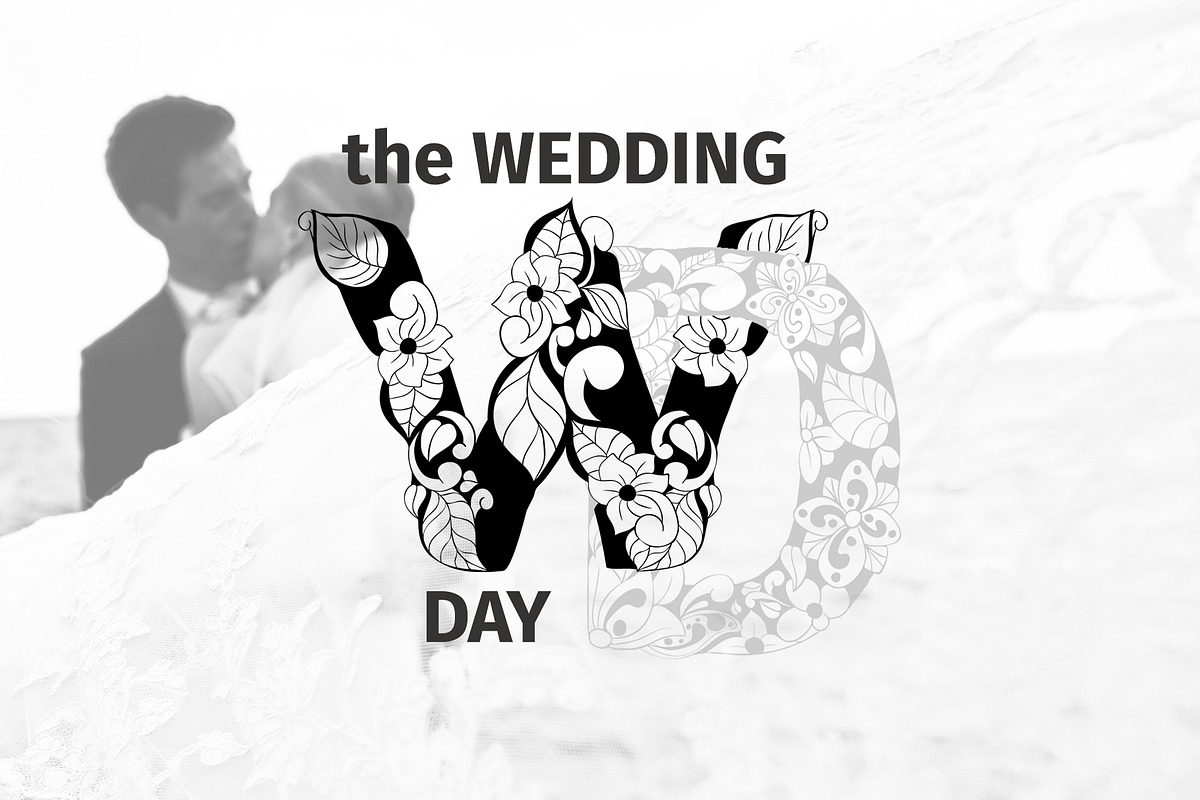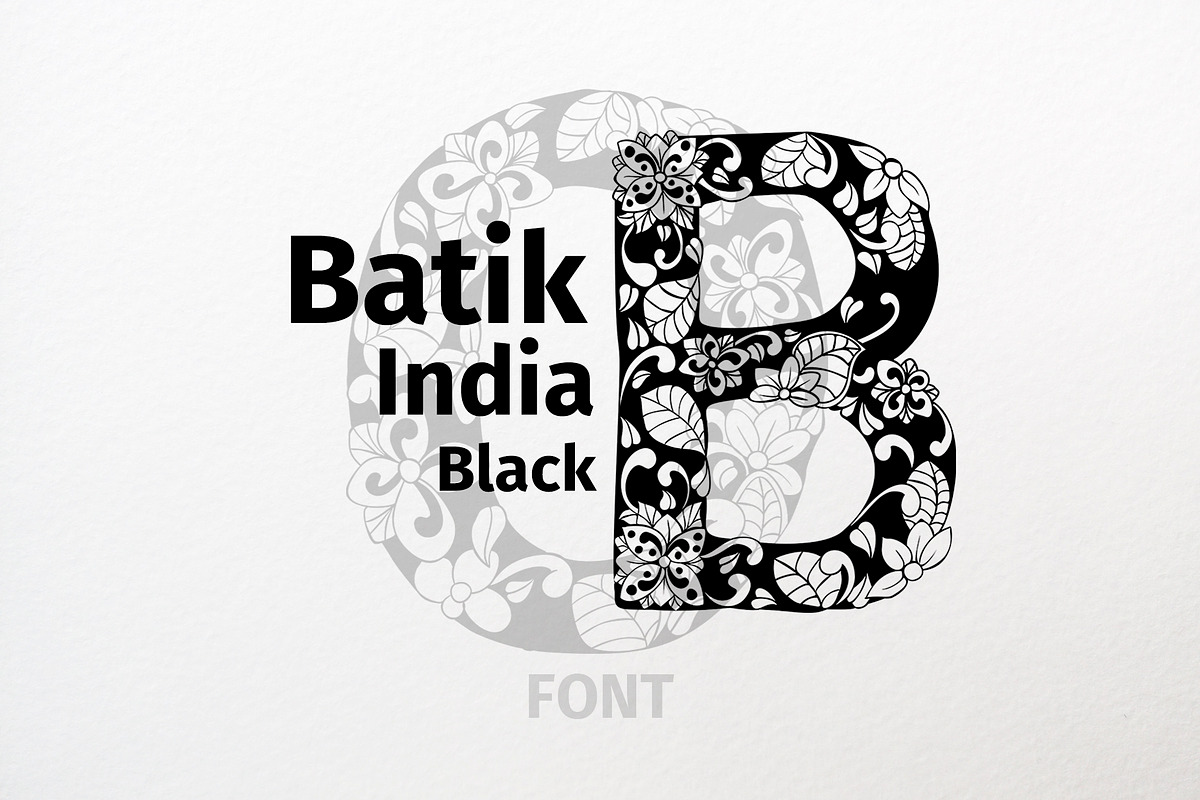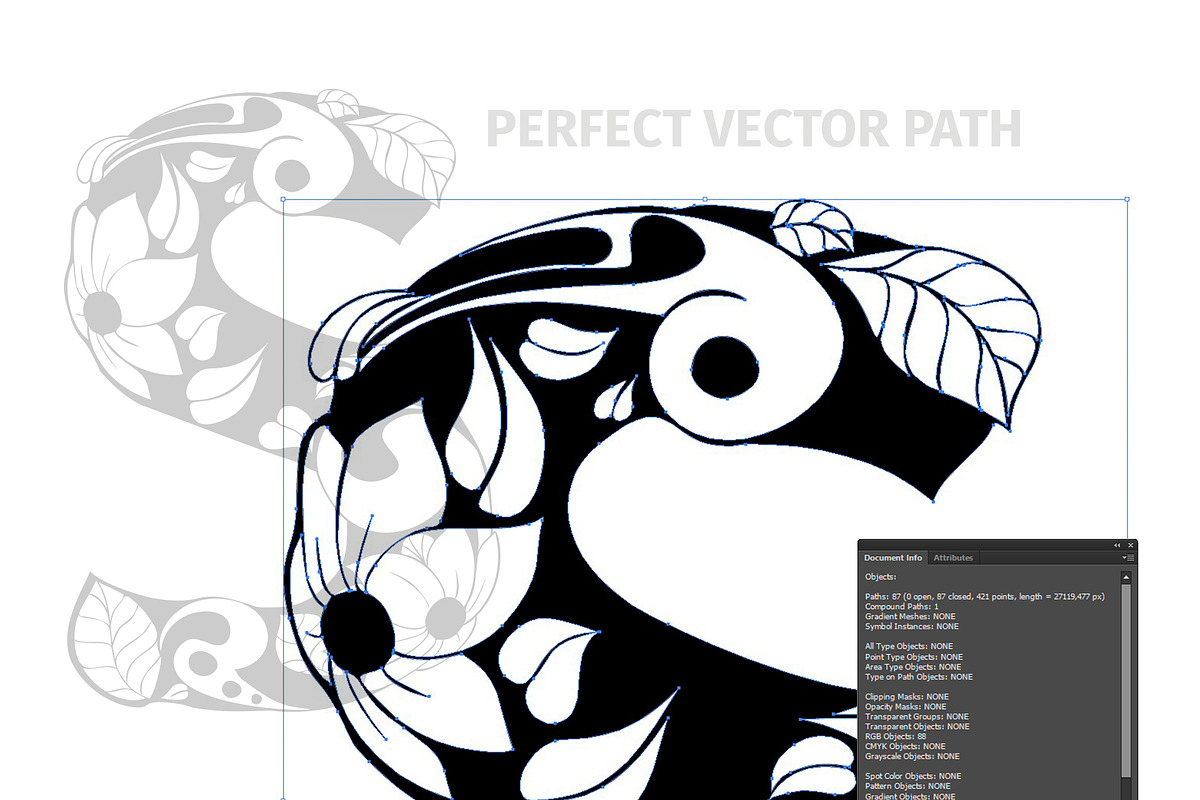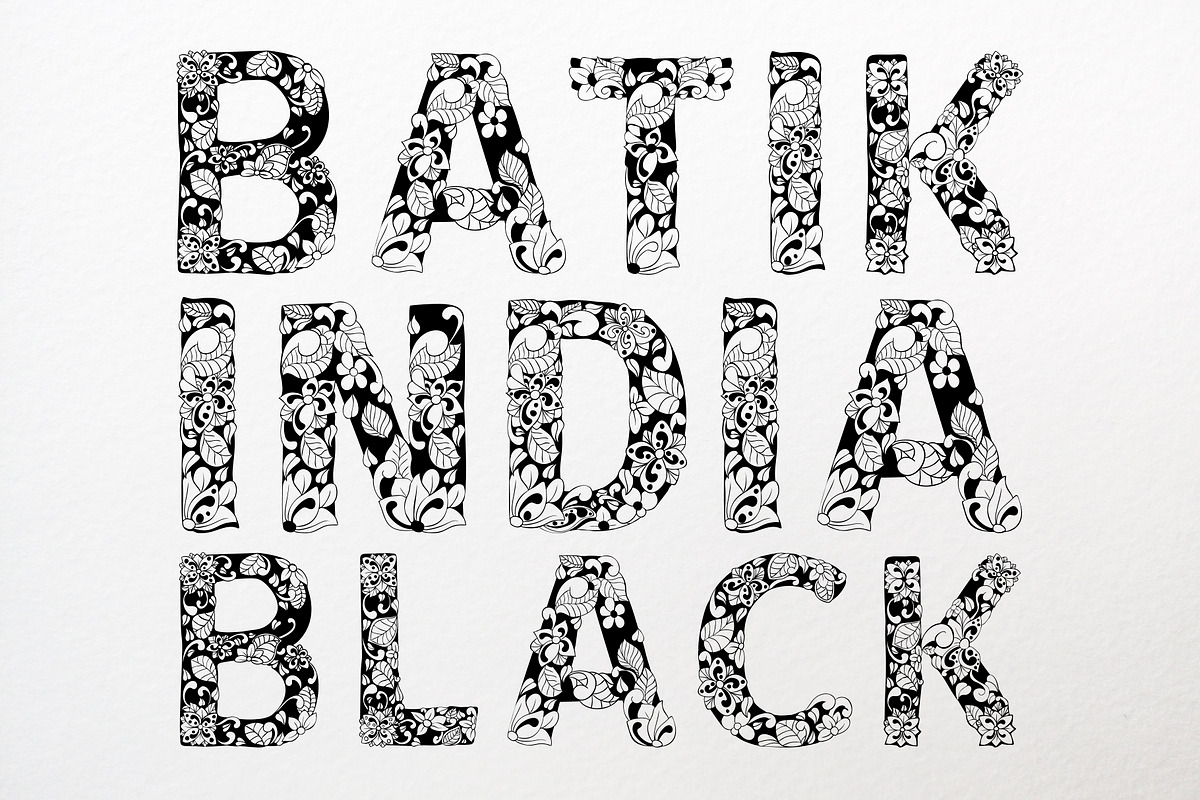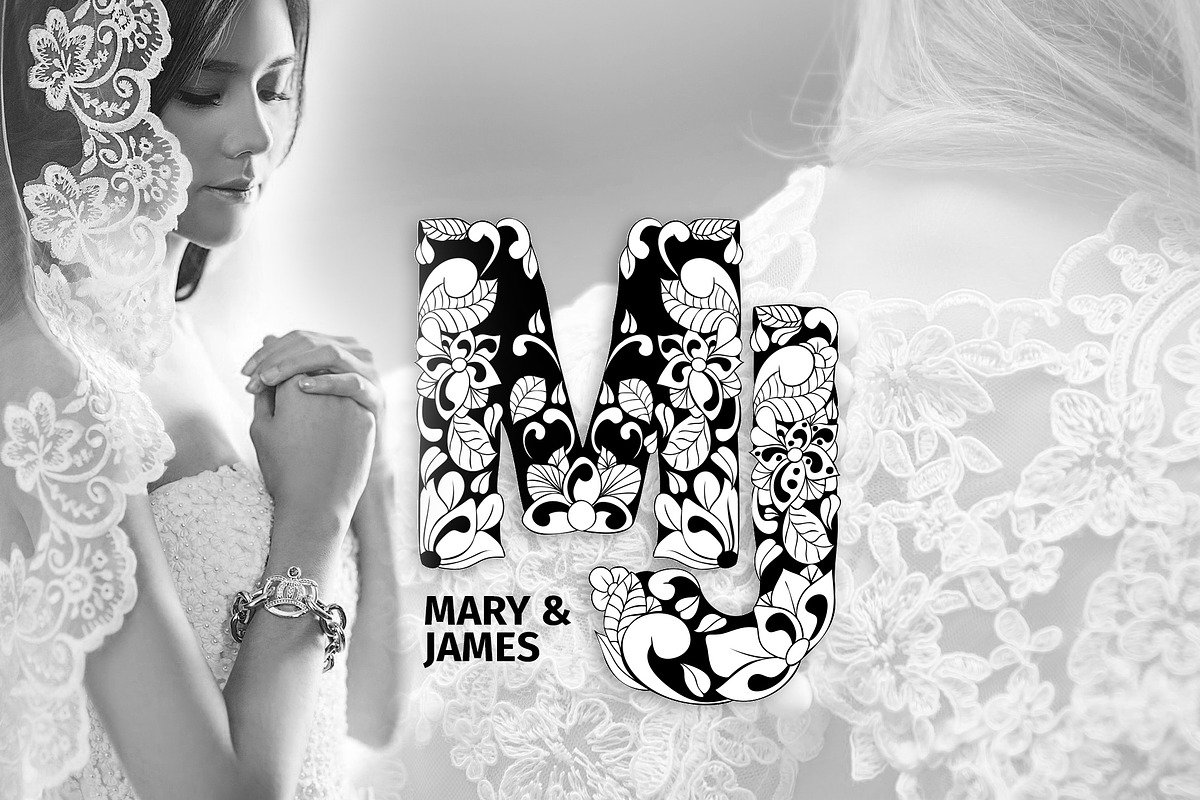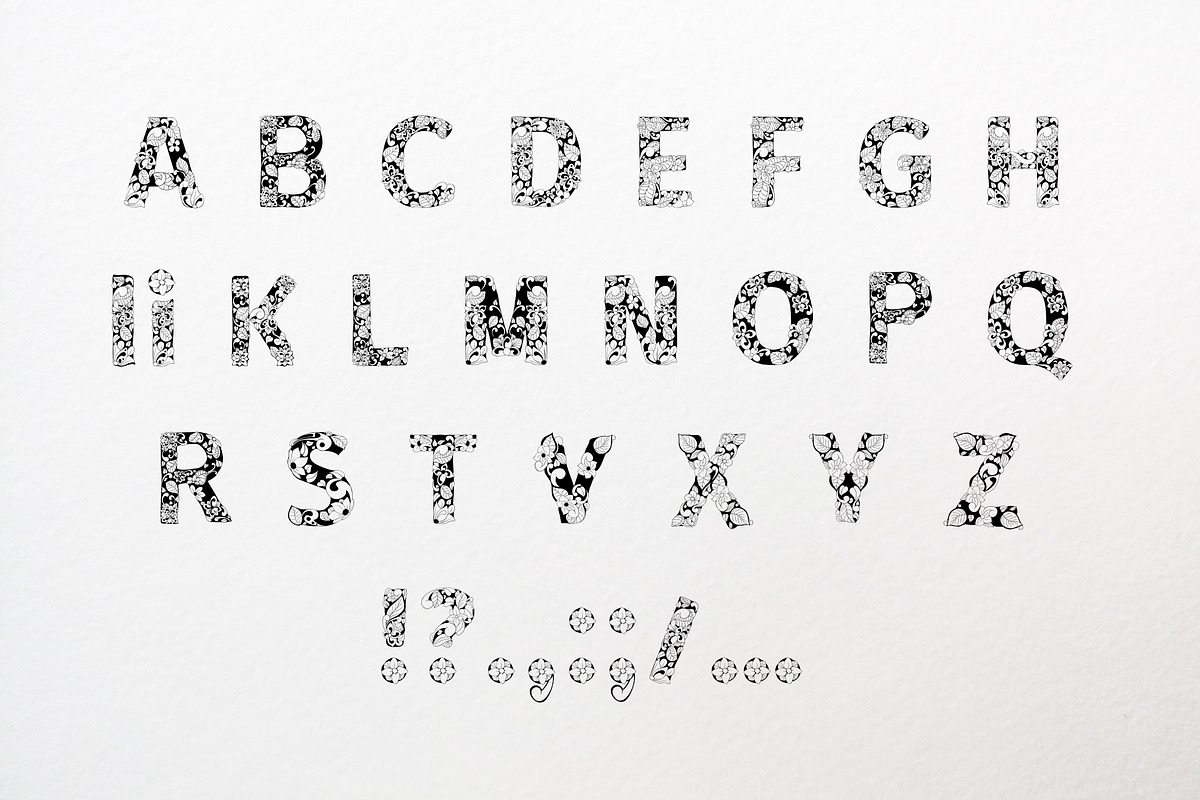
Batik India Black Font
Welcome to my shop! I'm happy to introduce my OTF font crafted with hand-drawn line art floral ornaments and vectorized into letters which become a font!
The letters from this font are drawn by hand then carefully digitized in Adobe Illustrator
Symbols " ! , . : ; / ?